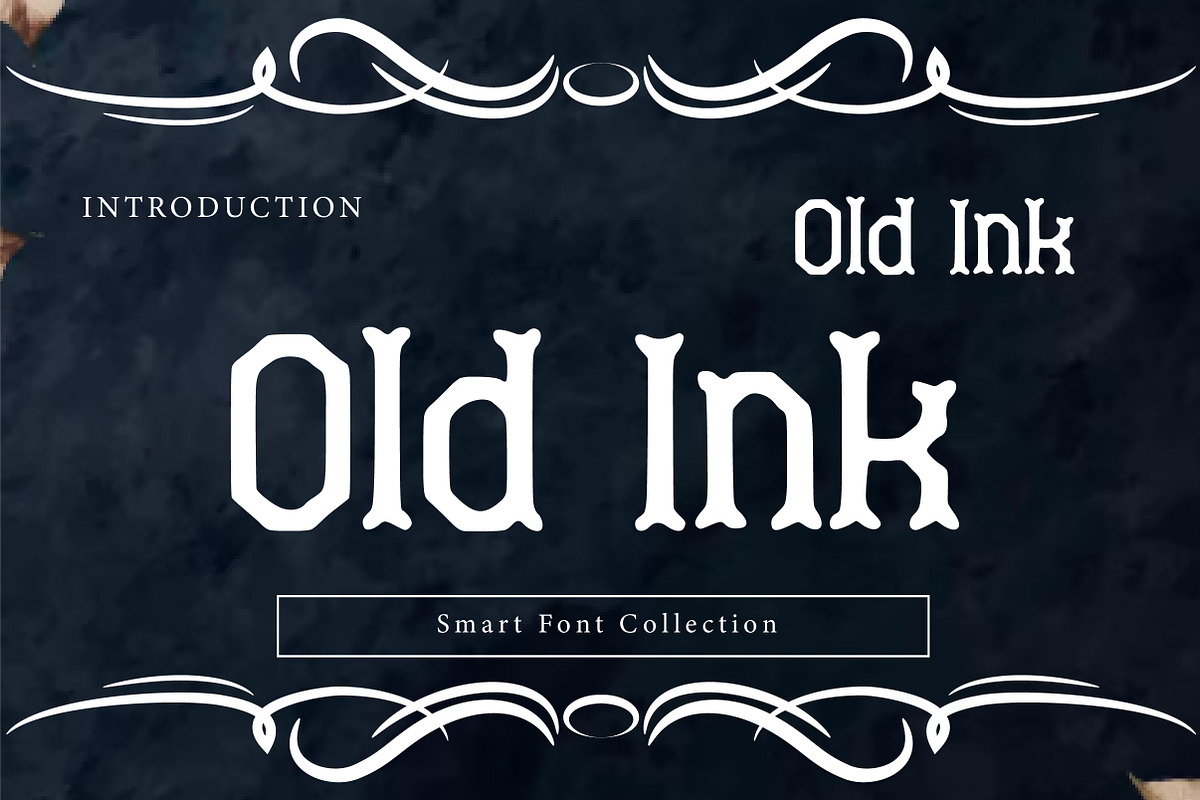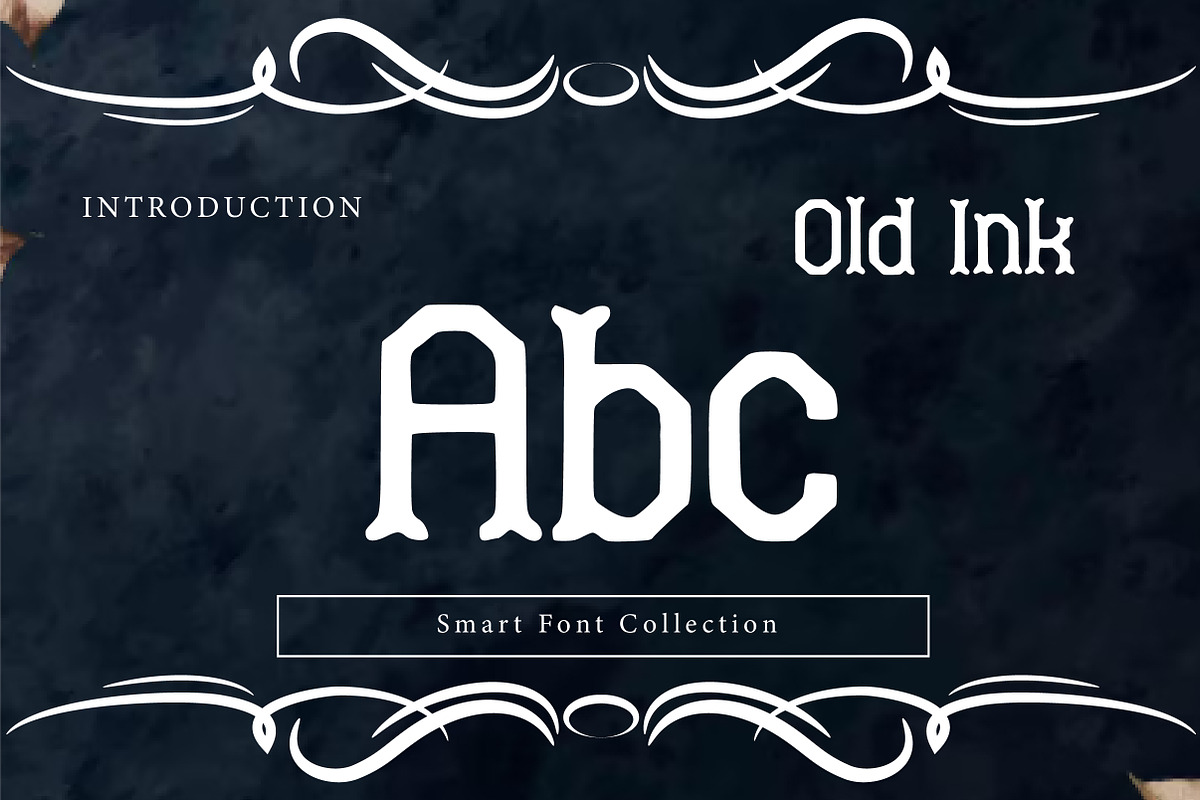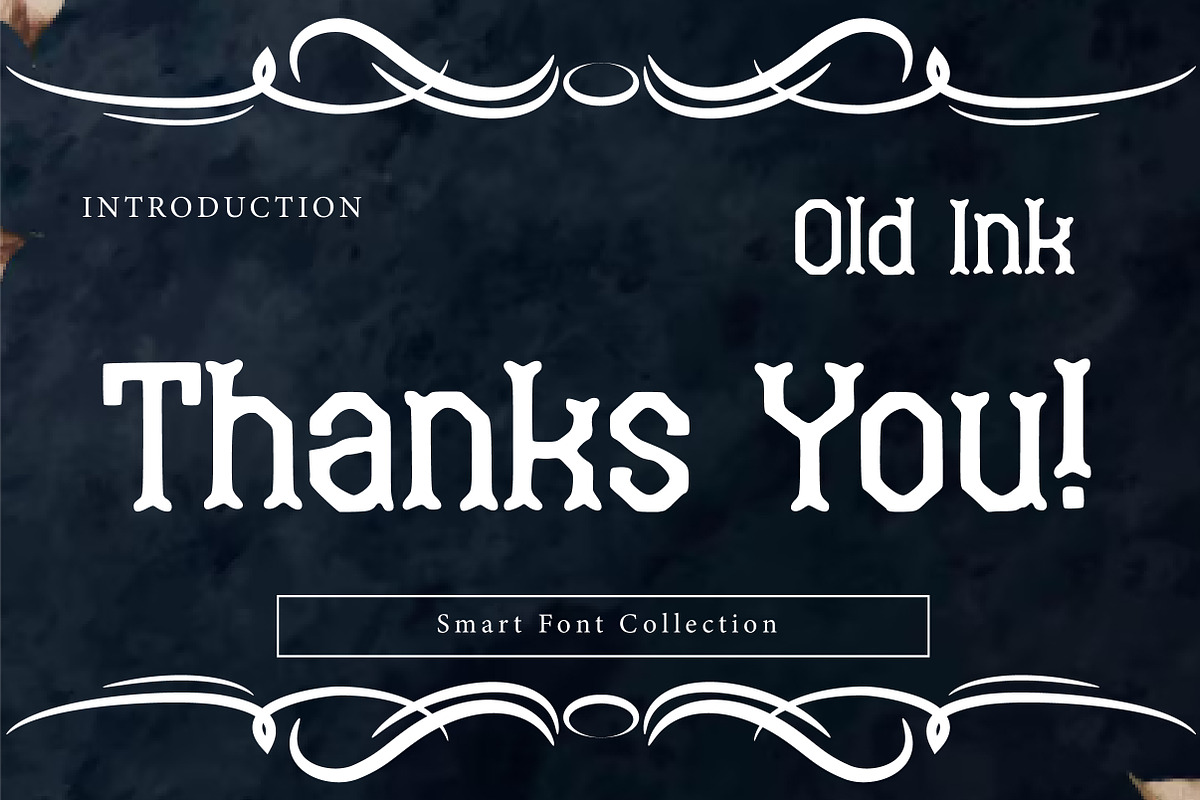
Old Ink
Old Ink is a bold, vintage blackletter-inspired display typeface with a smooth “inked” feel and classic gothic character. Its heavy strokes, subtly rounded terminals, and old-world proportions make it perfect for standout headlines and branding that needs a strong heritage vibe. Use it for logos, posters, packaging, labels, apparel, tattoo-style lettering, album covers, and dark/vintage themed designs—anywhere you want an authentic, timeless, old-ink printed look.